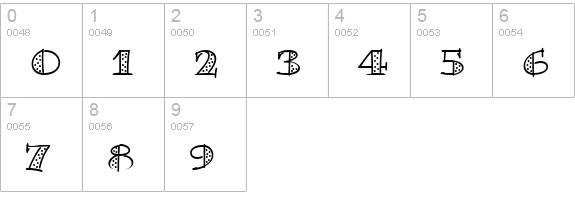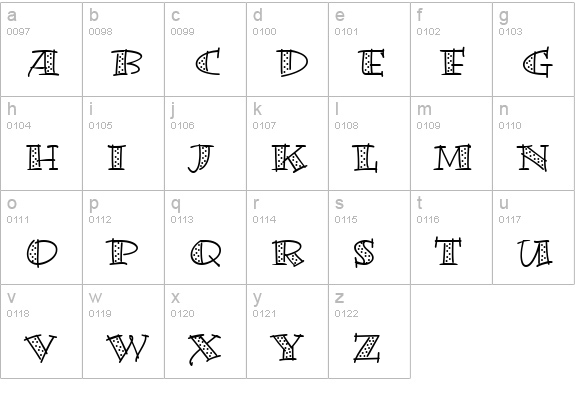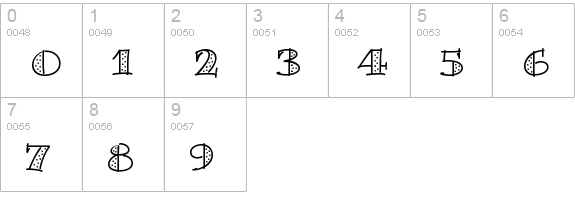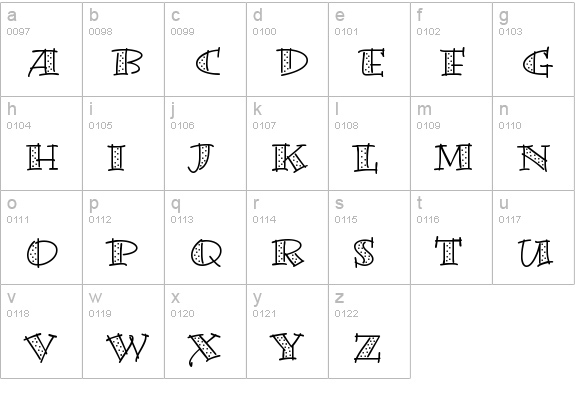
Bermuda LP Dots font is a playful and eye-catching typeface that is sure to make your designs stand out. Featuring a unique dotted style, this font is perfect for adding a fun and modern touch to your projects. Whether you're designing posters, invitations, or social media graphics, Bermuda LP Dots font will add a creative flair to your work. Best of all, Bermuda LP Dots font is available for free download at FontsMarket.com. Simply visit the website to easily access this fantastic font and start incorporating it into your designs today. Don't miss out on this amazing opportunity to enhance your creativity with Bermuda LP Dots font - download it now and let your imagination run wild!